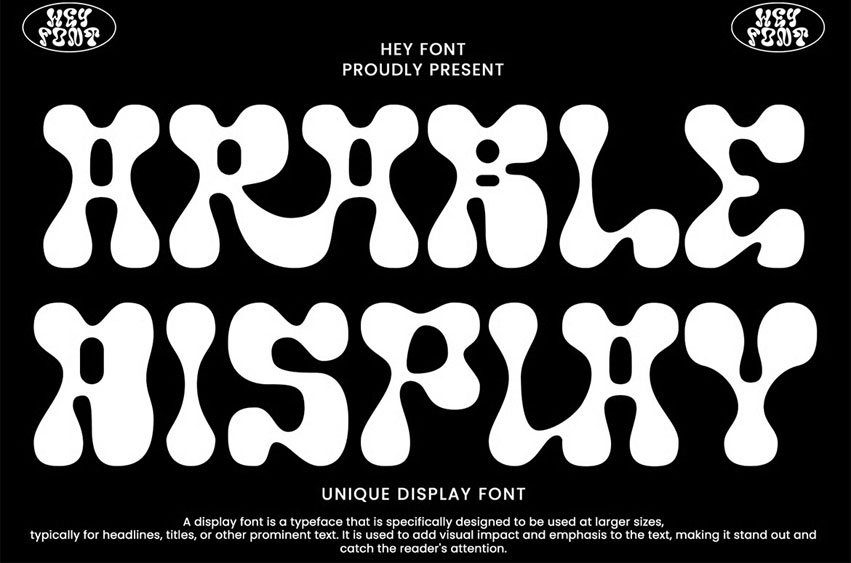
Arable Display Font
Arable Display Font Is “Unique Display Font” refers to a specific type of typography that is characterized by its distinctive, one-of-a-kind design, and it is typically used for eye-catching and decorative purposes.
Here’s a detailed explanation of what a unique display font is